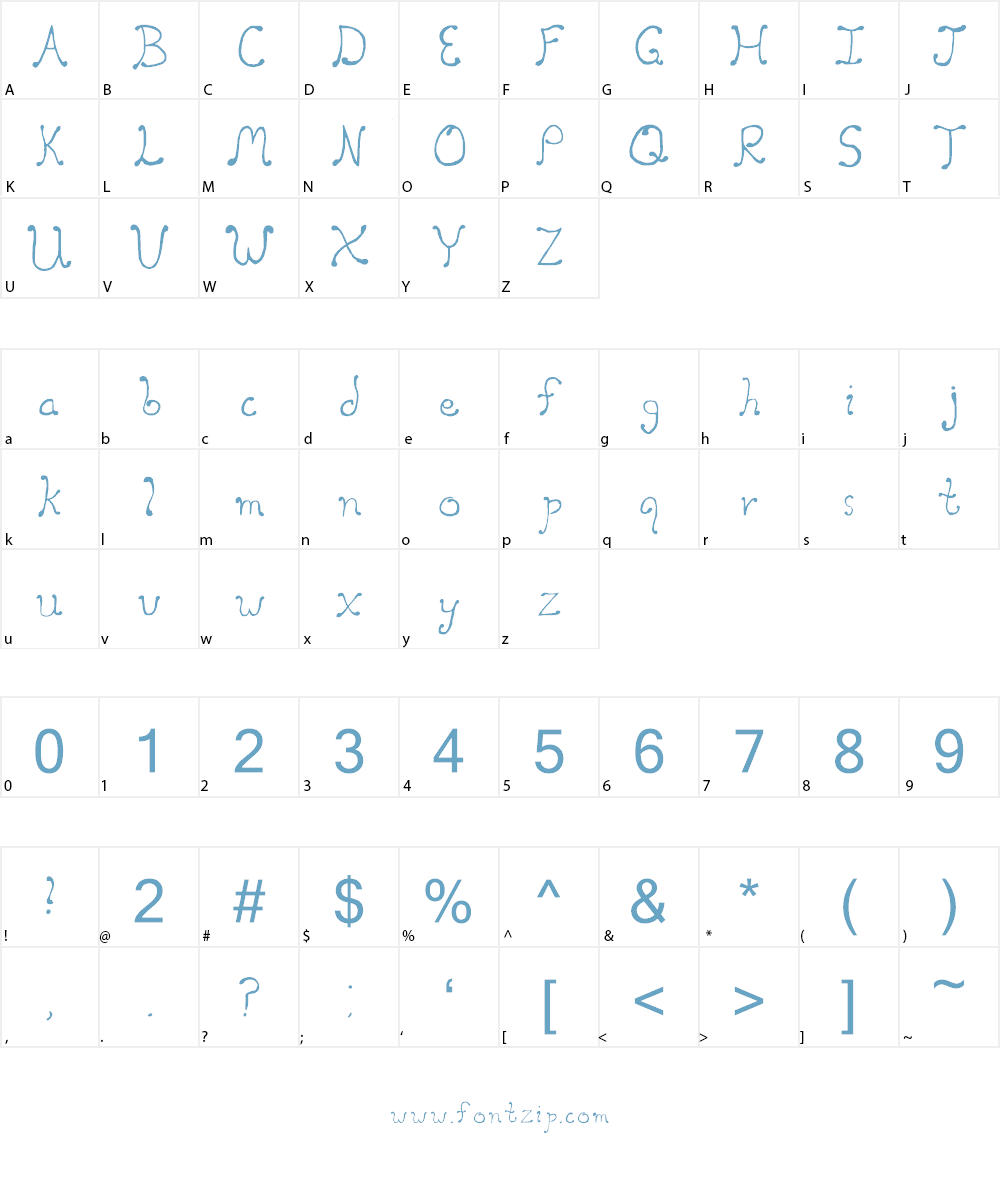
"Somewhere in My Memory" was inspired by John Williams' own composition. I play second violin in a high school orchestra, and when first the opening lines of this song fell upon my ears, I nearly died of joy! Anyhow, I hope you like the font! Merry Christmas to you, wherever you may be, in whatever season of the year it may be! God Bless!